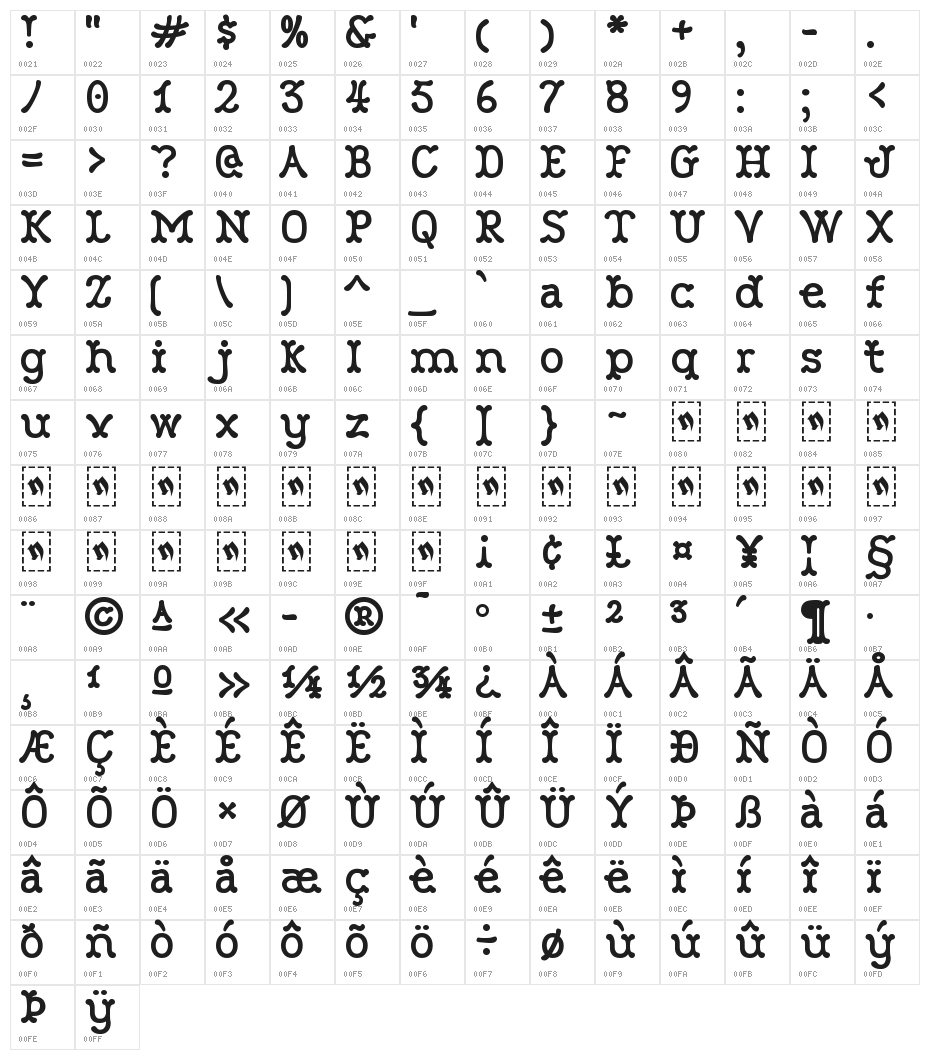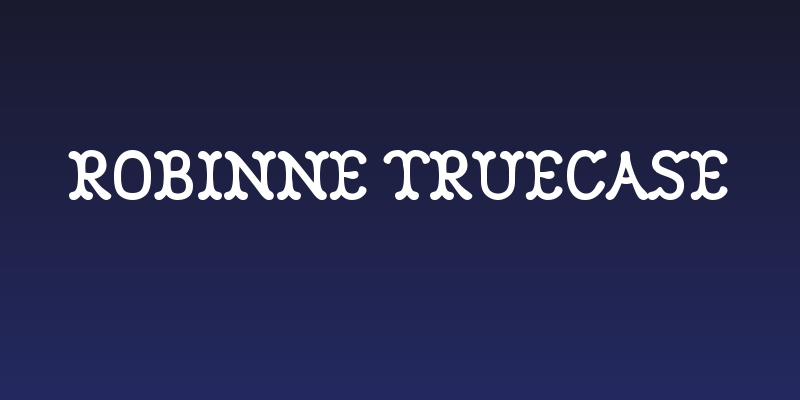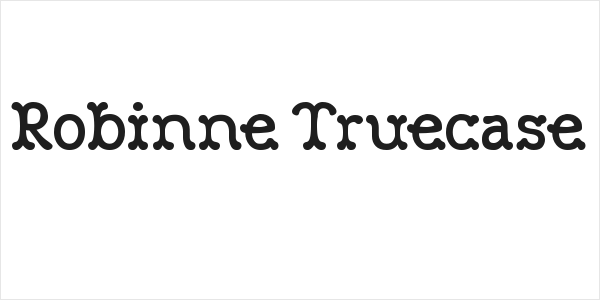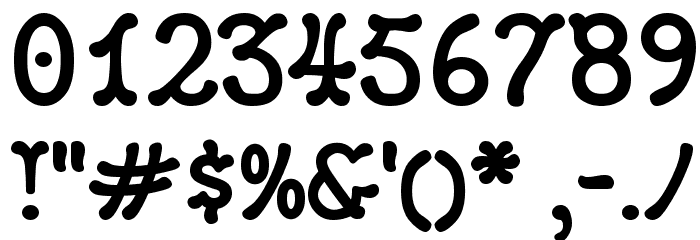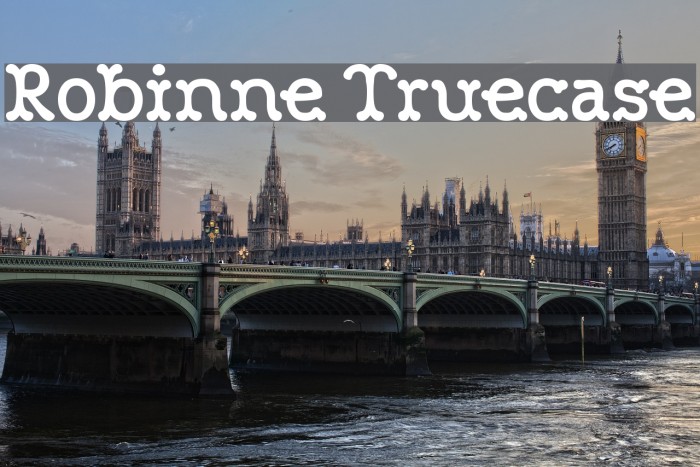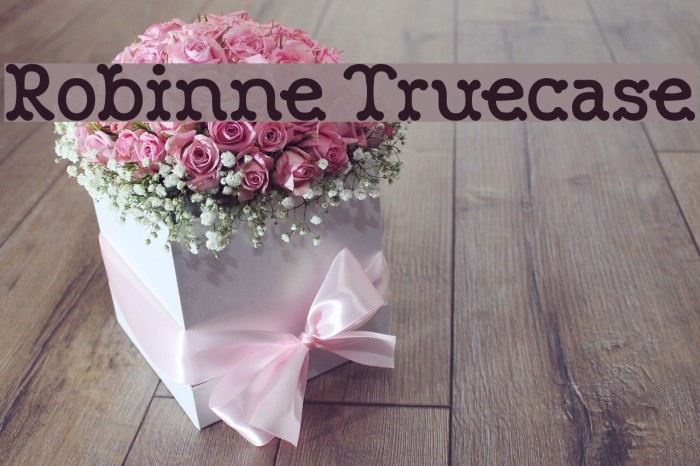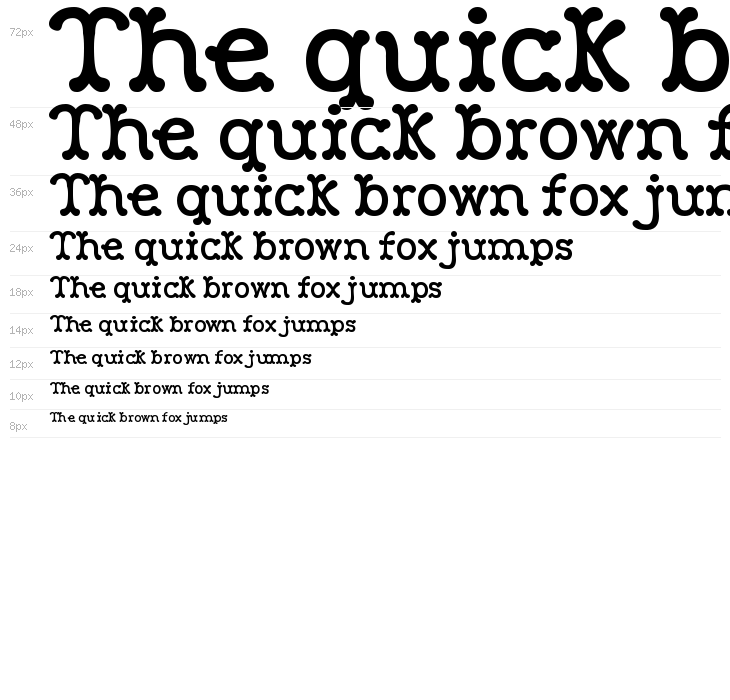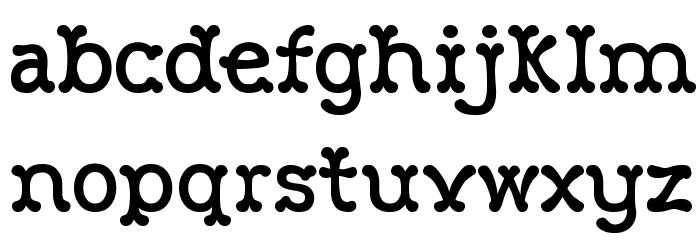
Robinne Truecase Font
Robinne Truecase Description
This font features a playful and whimsical design, characterized by its rounded and bubbly letterforms. The strokes are consistent in thickness, giving it a uniform appearance. The letters have a slight bounce, adding to the fun and casual vibe of the typeface. The uppercase and lowercase letters maintain a cohesive style, with the lowercase letters mirroring the playful nature of the uppercase. Numbers and special characters are designed to match the overall aesthetic, making the font versatile for various uses. The font's unique style makes it suitable for projects that require a touch of creativity and lightheartedness.